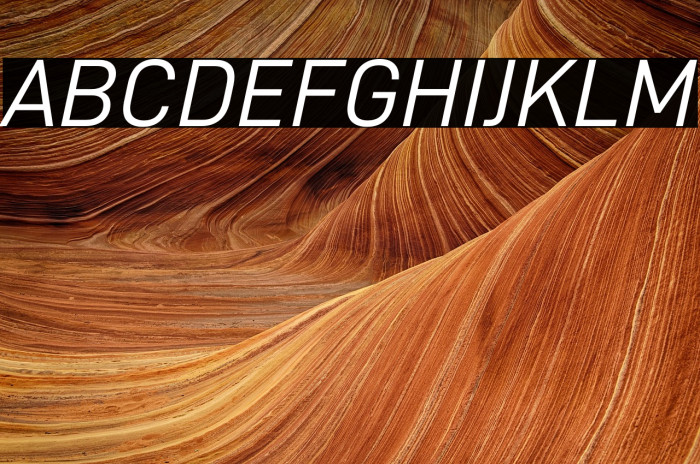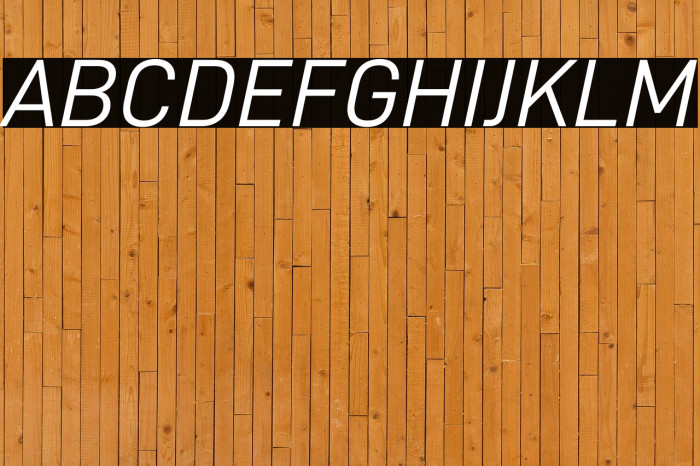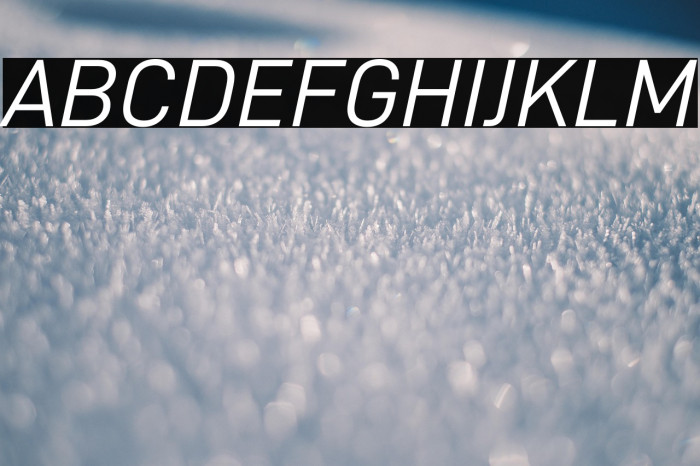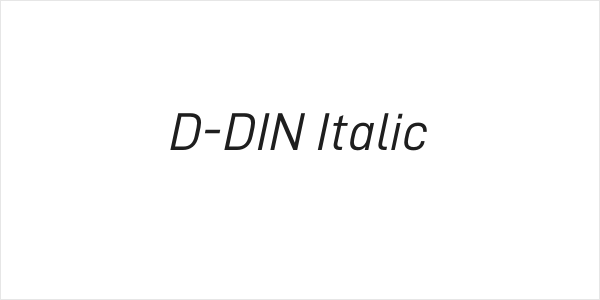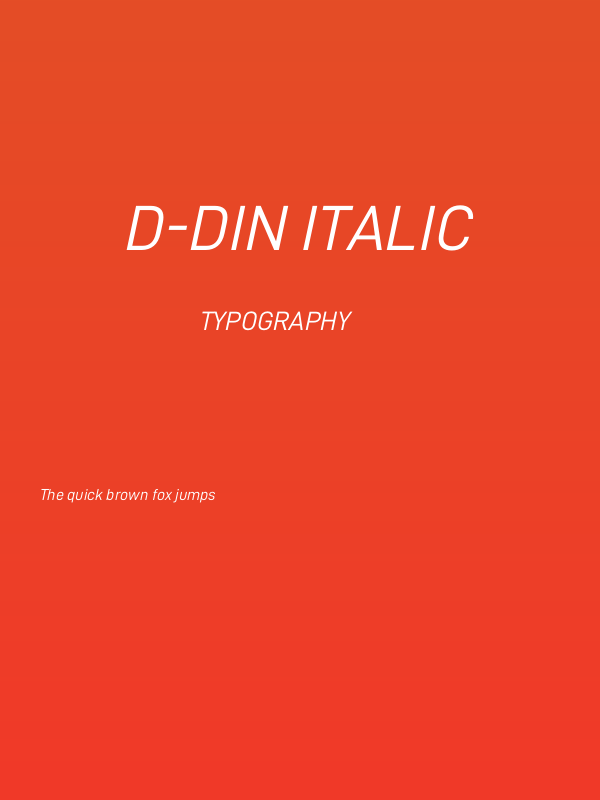
D-DIN Italic Font
D-DIN Italic Description
This font exhibits a clean, modern aesthetic with a slight slant, giving it an italicized appearance. The characters are uniformly structured, maintaining a consistent height and width, which contributes to its readability. The sans-serif style ensures a sleek and professional look, making it suitable for various applications. The numerals and special characters are designed to match the overall style, providing a cohesive appearance across all glyphs. The font's simplicity and elegance make it versatile for both digital and print media.
| Proposed Projects | Ideal for use in corporate branding, website headers, editorial design, and signage. |